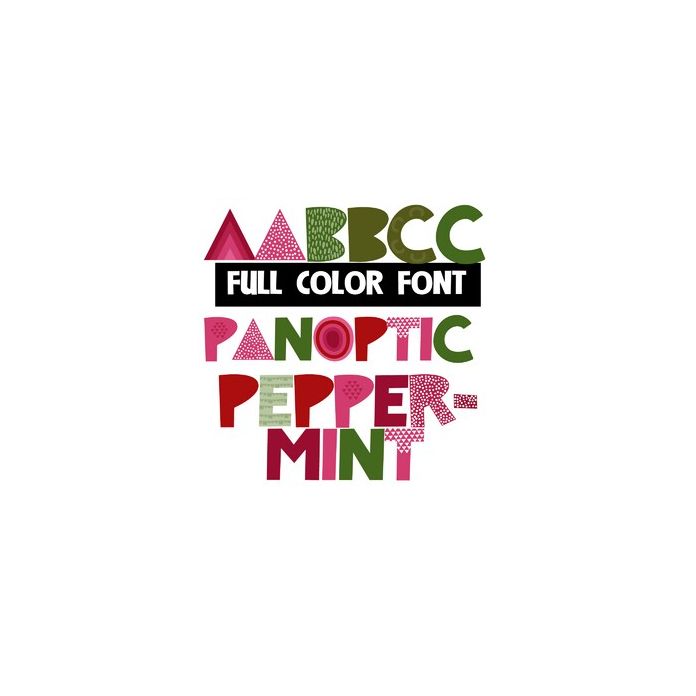
This modern, full-color font features letters filled w/ Christmas-colored designs. There is an alt case with more colors that you can access through Silhouette's glyph map.